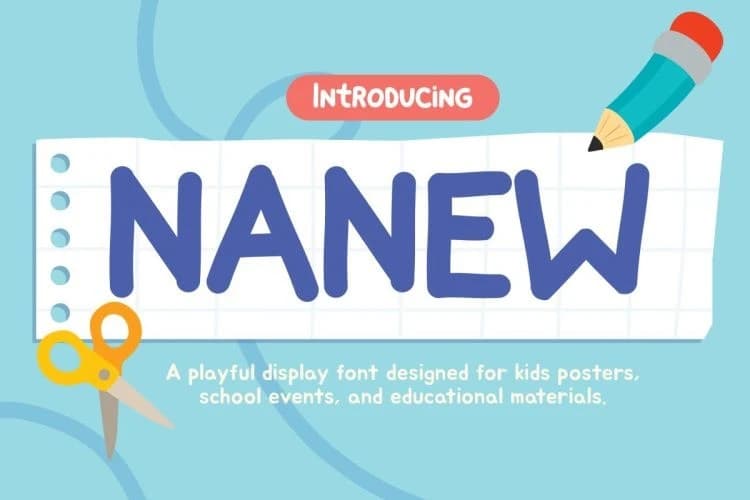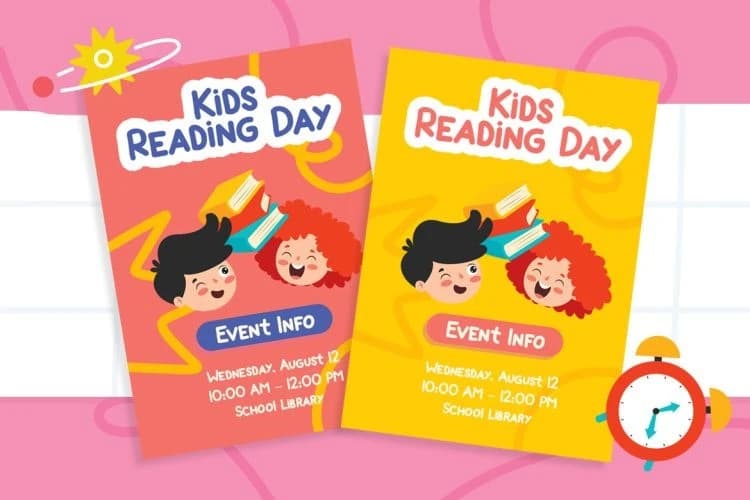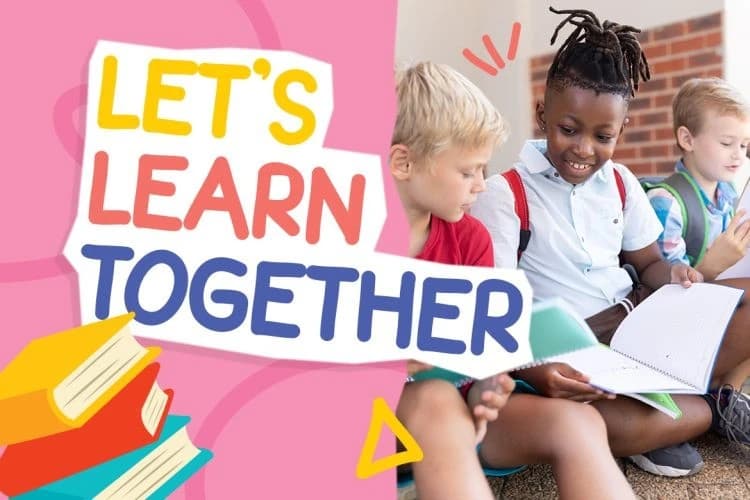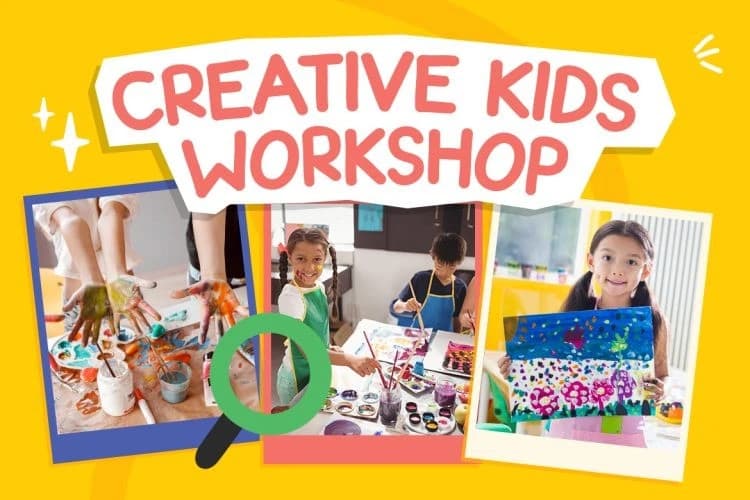
Nanew Playful Font
Nanew Playful Font is a cheerful and playful typeface created to bring joy and creativity into kids-focused designs. At first glance, its rounded shapes and hand-drawn style instantly create a friendly and welcoming feel.